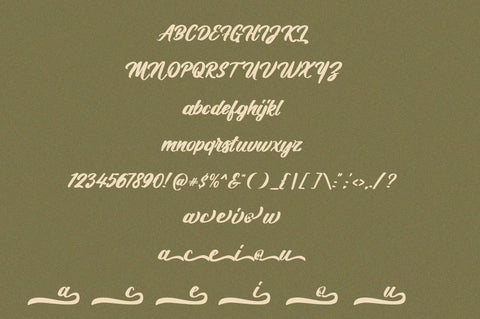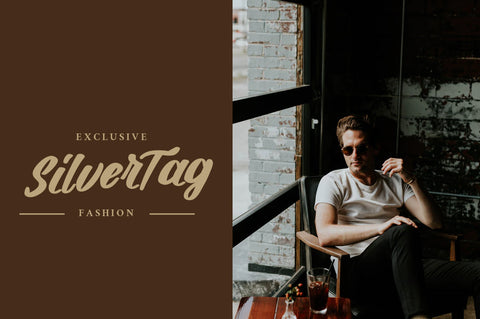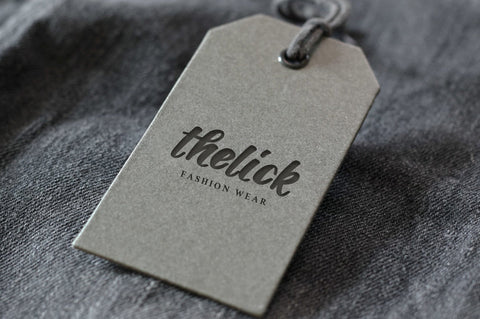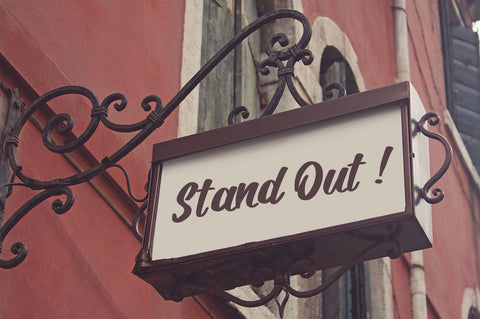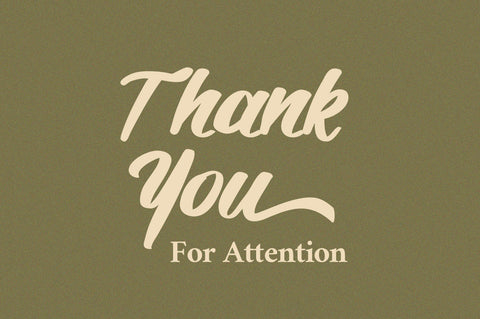
Hotline - Calligraphy Font
Hotline font is a flowing handwritten font, described by an elegant touch, perfect for your favorite projects. Fall in love with its incredibly distinct and timeless style and use it to create spectacular designs!
It easily cooperating together For Magazine, Movies, or Book Titles. For Photography, Wedding Invitation, Restaurant Menu or T-shirt Design. For Flyers, Banner Ads, web and printing. From Food and Fashion to a Cosmetics product
- Uppercase + Lowercase Letters
- Numbers + Punctuation
- Ligature Feature
- OpenType features
- Multilingual support